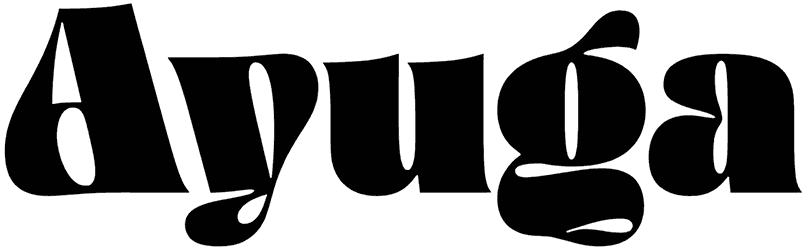
Ayuga Font
The elegant visual of this fancy font is what your design needs to turn into a perfect layout and impress your viewers. The Ayuga font’s characters have smooth and stunning faces that could be perfect for a fashion event flyer. Try this groovy font for your next innovative project and make a fascinating design.